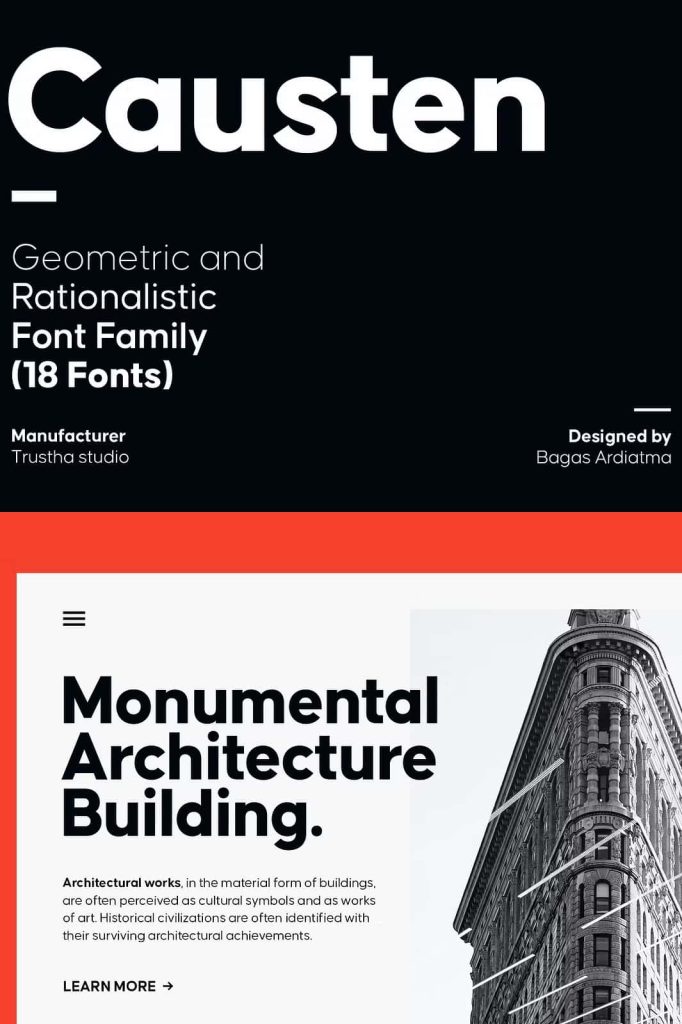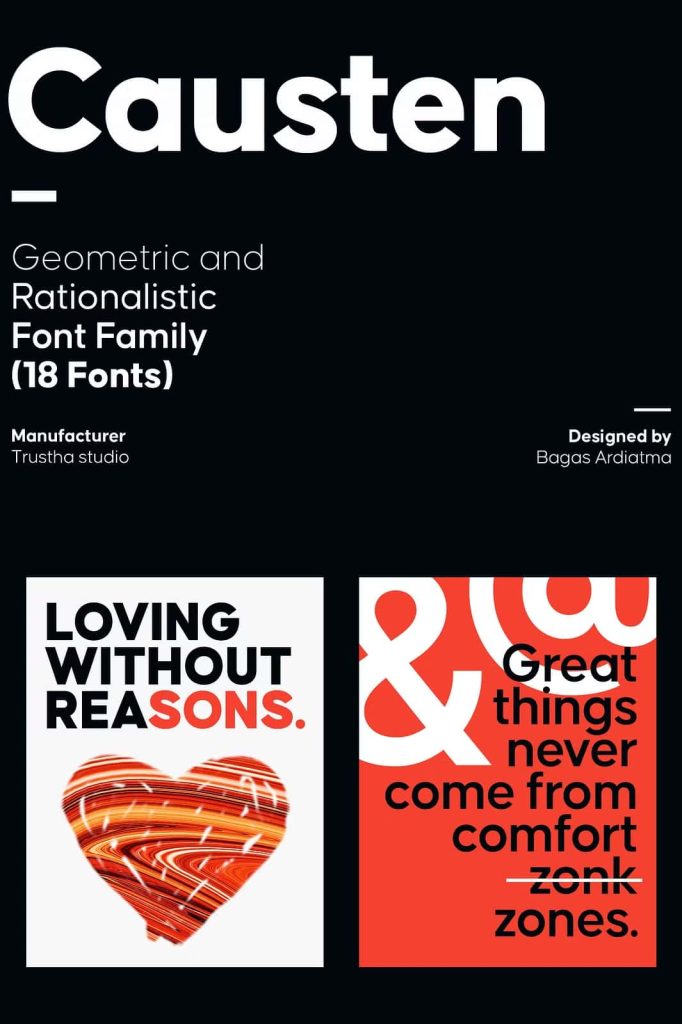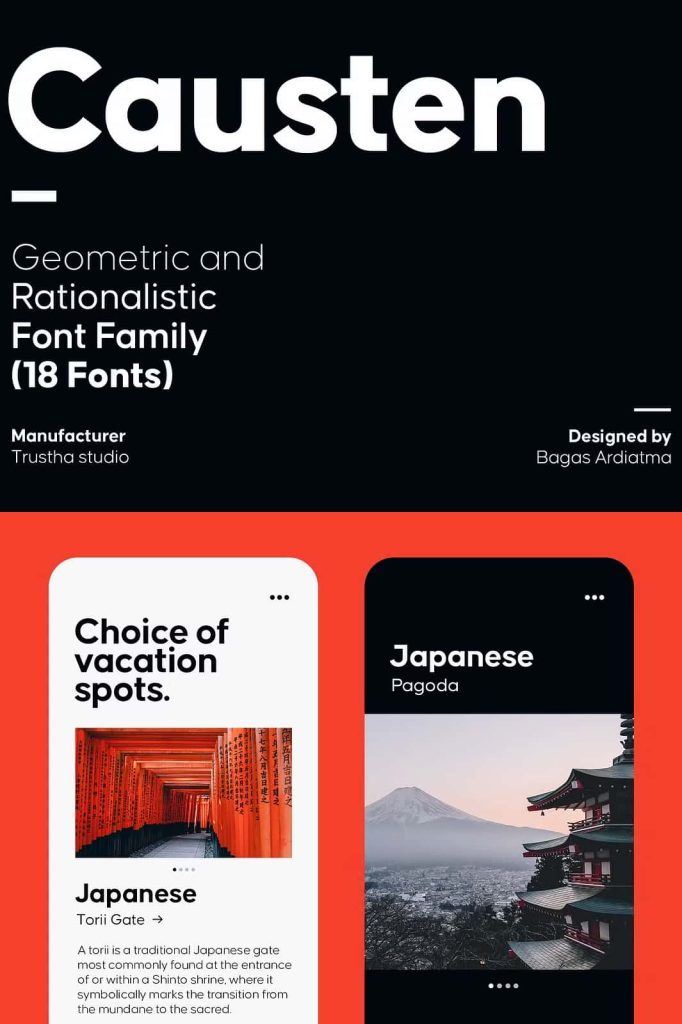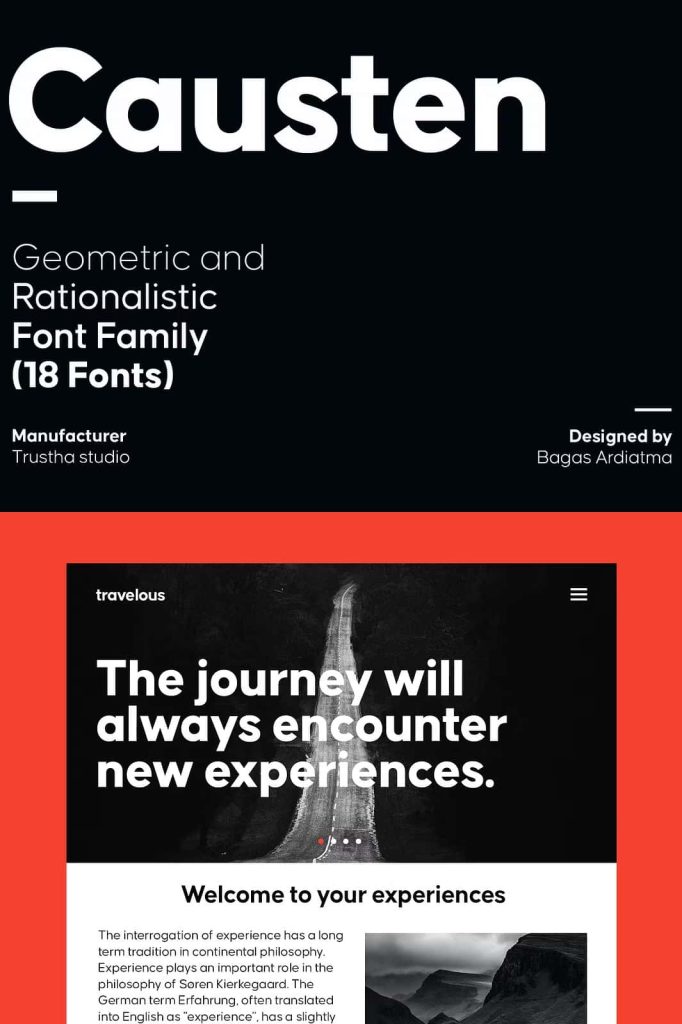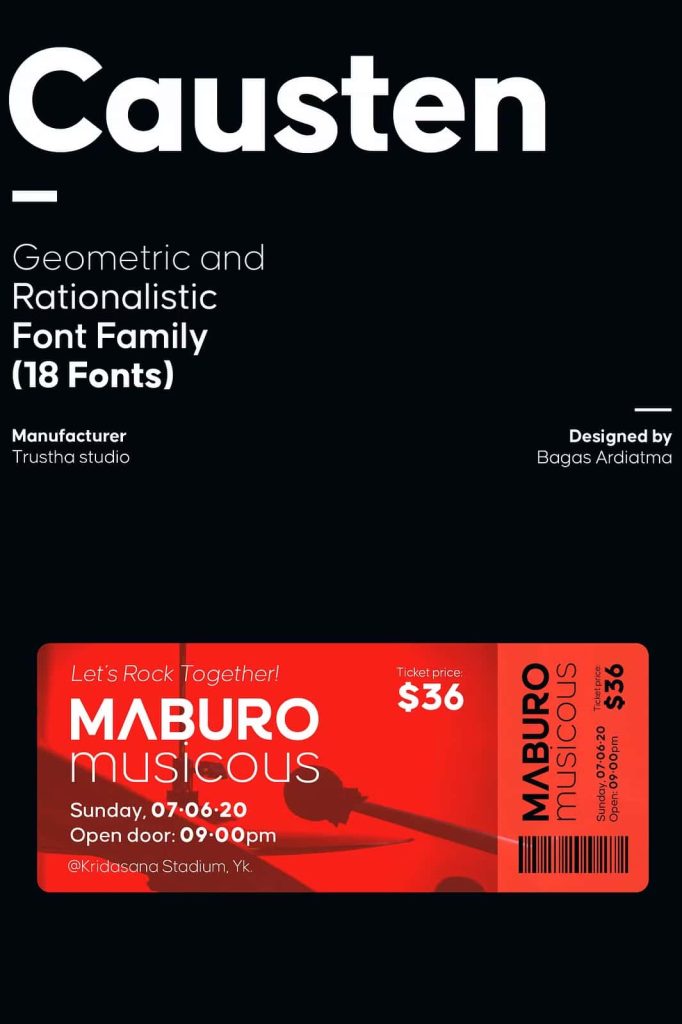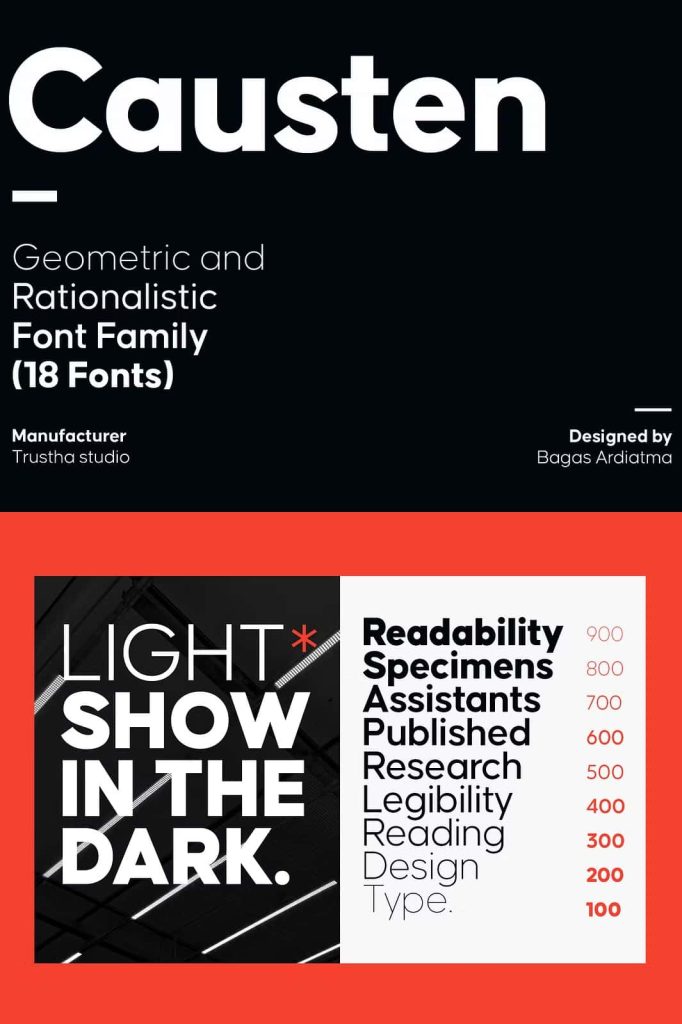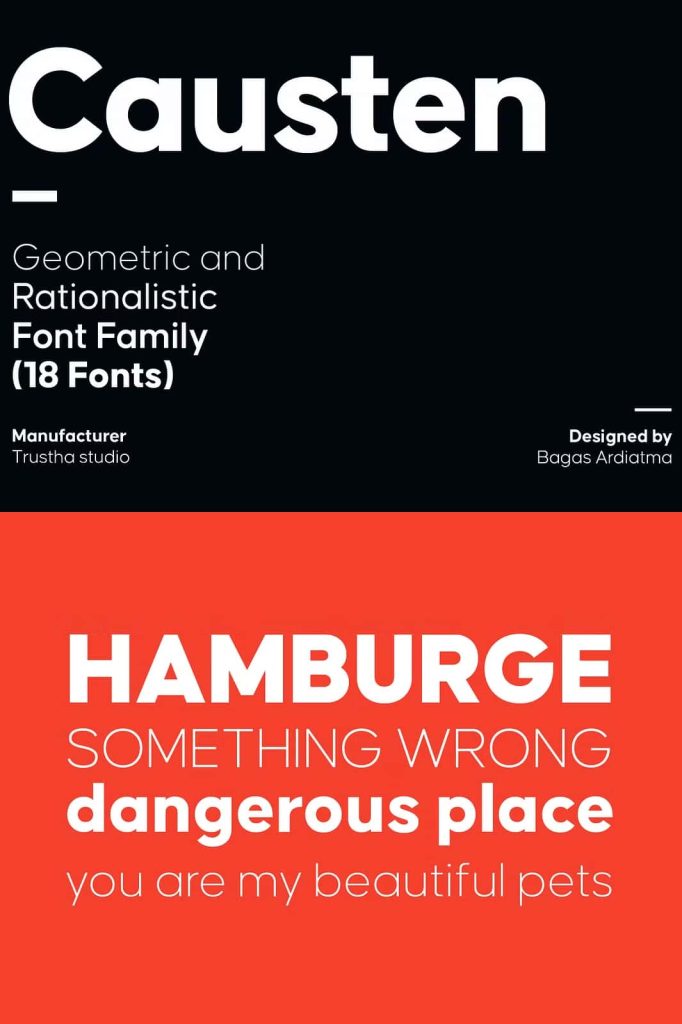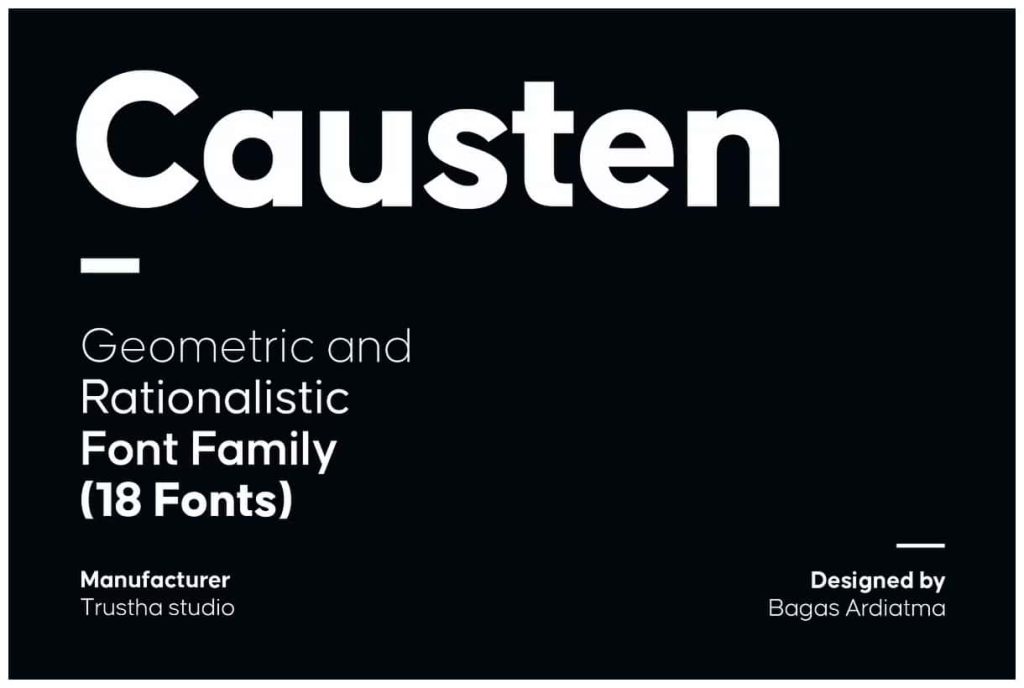
Causten Font Family
Causten: A Precise Geometric Sans Serif Font for Modern Design
Causten is a geometric sans serif font family that delivers clarity, balance, and precision in every character. Designed with a strong focus on rational structure, this typeface transforms simple geometric principles into a refined and highly functional visual system. Each letterform reflects careful construction, allowing designers to create work that feels clean, modern, and visually consistent.
Designed with Logic and Precision
Causten stands out because it follows a logical design approach. Every curve, line, and angle is built with intention. Instead of relying on decorative elements, the font emphasizes structure and proportion. This makes it highly effective for projects that demand clarity and professionalism.
The design process focuses on geometric accuracy. Circles, straight lines, and consistent spacing shape the foundation of each character. This results in a font that looks balanced and harmonious across all weights and styles. Designers can rely on Causten to maintain visual consistency whether it appears in headlines, body text, or branding materials.
Sharp Visual Clarity for Better Readability
One of Causten’s strongest qualities is its sharpness. The font uses clean edges and precise spacing to improve readability across different screen sizes and print formats. Each character is crafted to ensure that the eye can quickly recognize and process information without distraction.
This sharp visual clarity makes Causten ideal for digital interfaces, websites, mobile applications, and editorial layouts. The font performs well in both large and small sizes, maintaining its structure without losing legibility. Designers can use it confidently in user interfaces where clarity and usability are critical.
Balanced Forms That Enhance Visual Harmony
Balance plays a key role in the overall design of Causten. Every character maintains proportional relationships that create a sense of stability. The spacing between letters, the thickness of strokes, and the alignment of elements all contribute to a unified appearance.
This balance ensures that text blocks look neat and organized. It reduces visual noise and allows the content to stand out clearly. Whether used in branding, advertising, or editorial design, Causten helps deliver a polished and professional look.
Clean and Modern Aesthetic
Causten embraces a minimalist approach that aligns perfectly with modern design trends. It removes unnecessary details and focuses on essential forms. This creates a clean and timeless aesthetic that works across various industries, including technology, fashion, corporate branding, and creative media.
The simplicity of the font does not limit its versatility. Instead, it enhances adaptability. Designers can pair Causten with other typefaces or use it as a standalone solution for a strong visual identity. Its neutral yet refined style allows it to fit seamlessly into different design contexts.
Versatile for Multiple Design Applications
Causten performs exceptionally well in a wide range of applications. It works effectively for logos, website typography, print materials, packaging, and user interfaces. The font’s geometric foundation ensures that it remains consistent across different platforms and media.
Because of its structured design, Causten also supports branding consistency. Businesses can use it to create a unified visual language that communicates professionalism and reliability. Its modern tone helps brands appear forward-thinking and trustworthy.
Why Choose Causten?
Designers choose Causten because it combines logic, clarity, and aesthetic appeal. It simplifies complex visual communication by providing a reliable and well-structured type system. The font’s geometric precision ensures that every design looks intentional and refined.
By using Causten, you can create designs that feel organized, modern, and visually appealing. Its clean lines, balanced forms, and sharp clarity make it a powerful tool for both digital and print projects. Whether you aim to build a strong brand identity or improve readability, Causten delivers consistent and high-quality results.